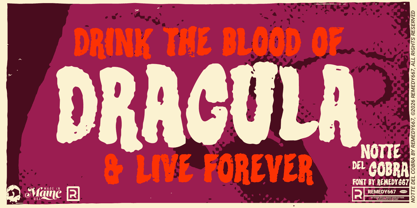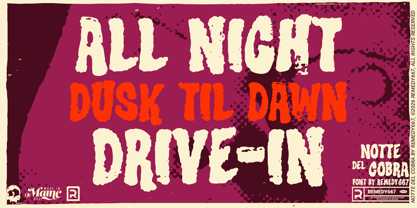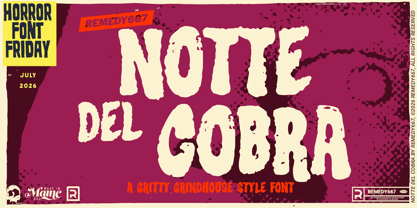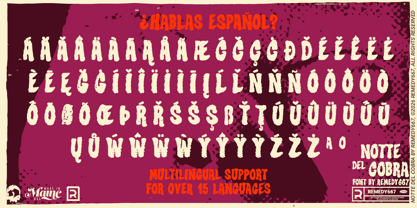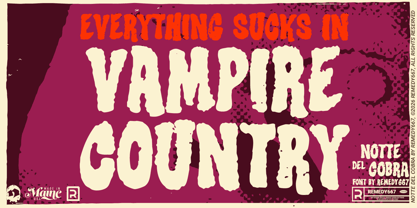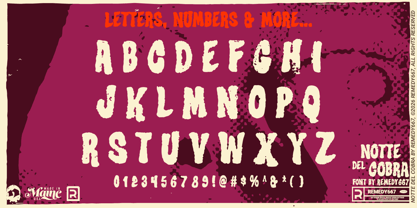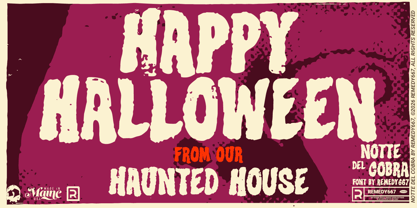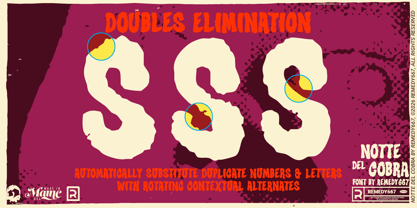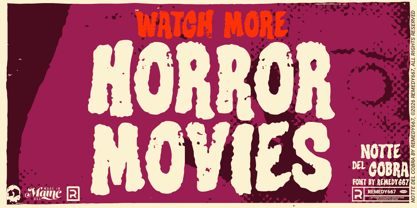
The Notte Del Cobra 667 Font Family was designed by Nick Polifroni and published by Remedy667. Notte Del Cobra 667 contains 1 styles. More about this family
The midnight projector flickers… the film crackles… and Notte del Cobra flashes across the screen! Out of the shadows with all the grime, grit, and psychedelic menace of a grindhouse classic. Inspired by lettering from the Night of the Cobra Woman pressbook, Notte del Cobra captures the rough, photocopied charm of vintage exploitation cinema.
Perfect for retro posters, fuzzed-out album covers, underground zines, or anything craving a healthy dose of sleaze. Shed your clean, respectable typography and embrace Notte del Cobra.
Features
• Rotating letters and numbers for a more natural, distressed appearance.
• Extensive multilingual language support.
• Inspired by vintage grindhouse and psychedelic horror lettering.
• Perfect for horror, exploitation, grunge, photocopy, and retro print-inspired designs.